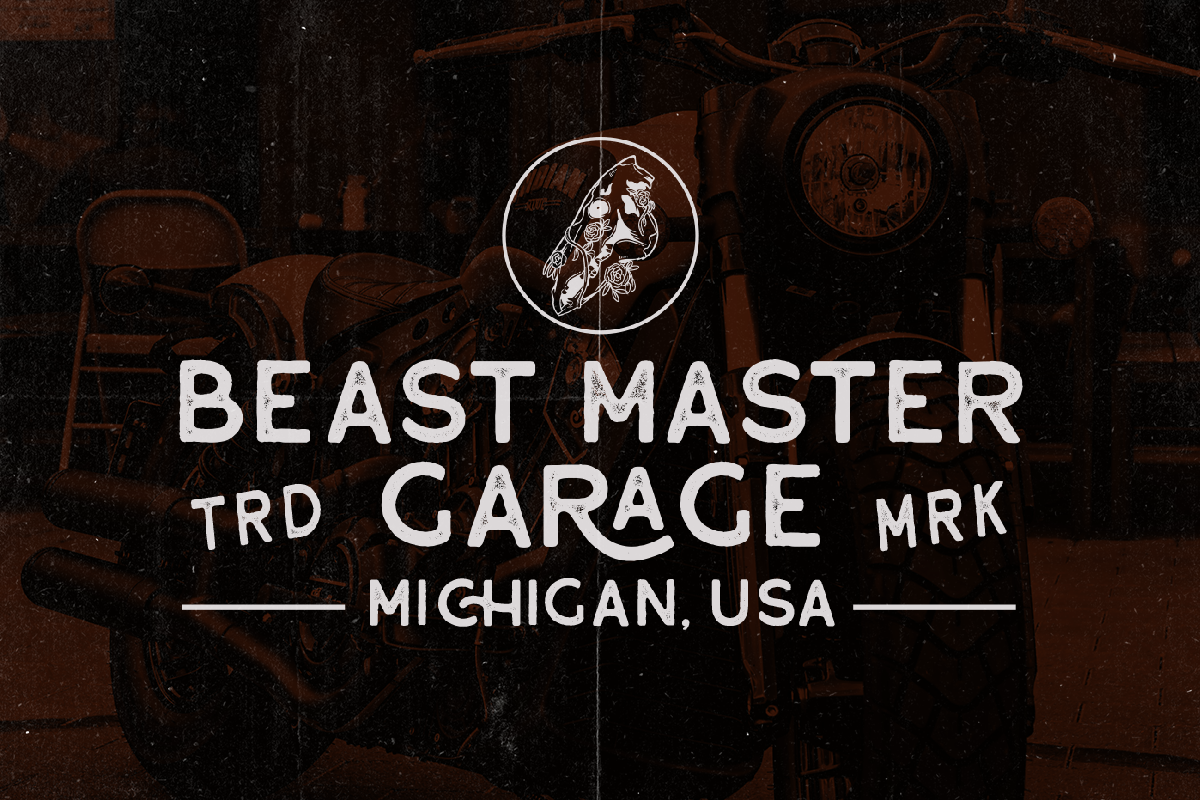
Reliva - Organic Sans (+EXTRA)
Introducing Reliva Organic Sans, This typeface comes with many alternates and ligatures to make this font unique. There are also 6 high quality illustration that comes with this font!
Reliva is just the perfect font to make logotype, branding, packaging, and quotes.